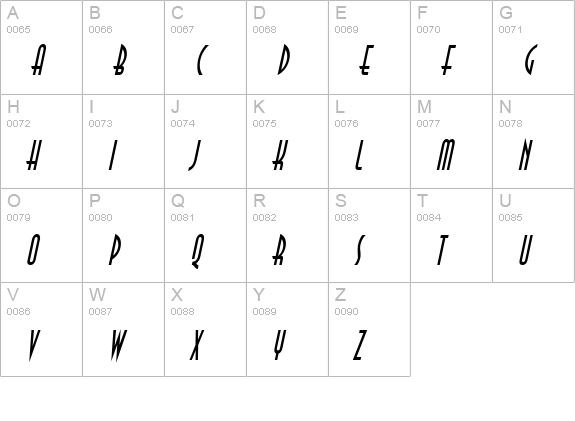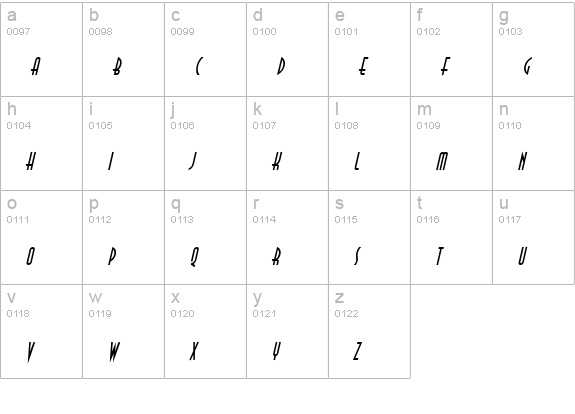
Asia Thin Italic is a delicate, low-contrast, italic variant in the Asia typeface family \xE2\x80\x94 well suited to fashion editorial, minimal branding, and high-contrast display.
Experience the graceful elegance of Asia Thin Italic font, a typeface that exudes sophistication and modernity. With its delicate lines and slanted design, this font brings a touch of refinement to any project. Perfect for adding a subtle touch of style to your designs, Asia Thin Italic font is both versatile and eye-catching. Best of all, Asia Thin Italic font is available for free download at FontsMarket.com. Whether you're designing a website, creating a logo, or crafting a print layout, this font is sure to elevate your work to the next level. Download Asia Thin Italic font today and let your creativity shine!